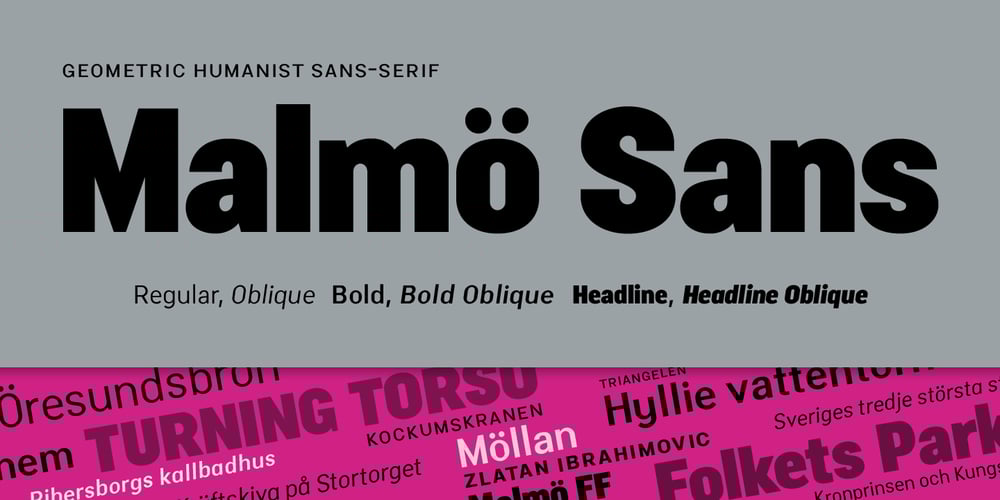
Malmo Sans Pro Font Family was designed by Martin Lexelius and published by Martin Lexelius Core. Malmo Sans Pro contains 6 styles and family package options. Malmö Sans was born from the preconception that geometry is neutral, and neutral fonts have a wide application window. No ornaments, no quirks – just clean. Design process: establishing the main proportions, grids and library of geometric shapes. However, people are not math, people are not built from grids. We are irregular, not always logical, and, foremost, we are human. So: humanisation – define parts and areas, and make the needed adjustments to shapes and forms, although being mathematically correct. Basically, changing it into something that pleases the eye. Much effort has been made to achieve equal parts minimalism, aesthetics and legibility.